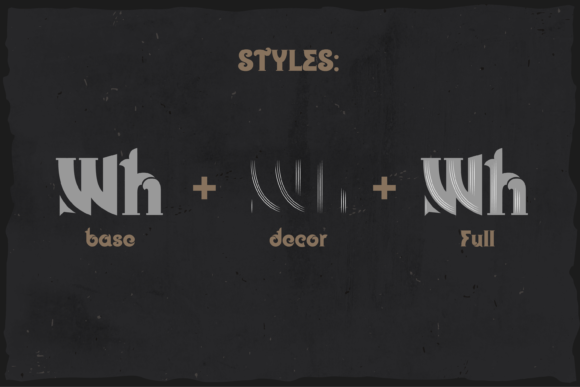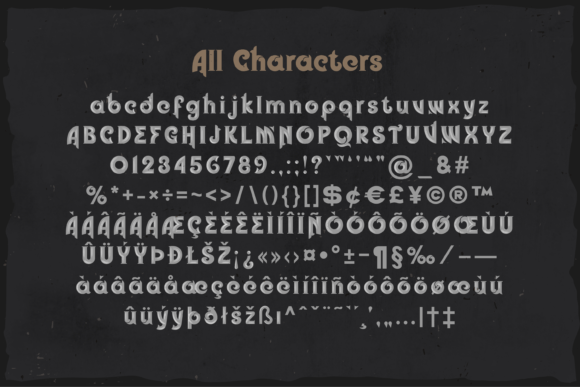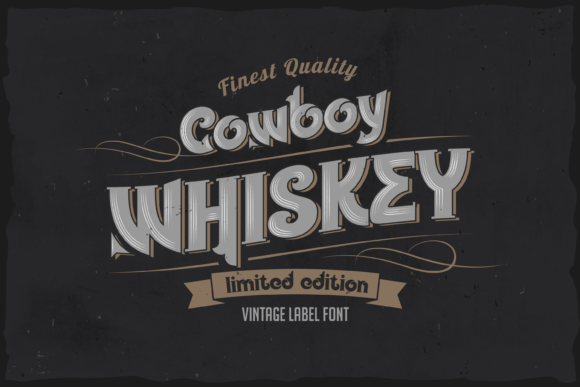
Cowboy Whiskey Font: Saddle Up for a Vintage Design Ride
Are you a designer or crafter looking for a font that embodies the rugged charm of the Wild West? Look no further than the Cowboy Whiskey font, a stylish and vintage-label layer display font that’s perfect for creating eye-catching labels, posters, and signage with a nostalgic flair.
The Wild West Comes Alive
Cowboy Whiskey is more than just a font – it’s an experience. With its intricate detailing and bold serifs, this font transports you back to the lawless lands of the American West, where cowboys roamed free and whiskey flowed like water. Whether you’re designing a label for a craft whiskey, creating a poster for a Wild West-themed event, or simply looking for a font that adds a touch of rugged elegance to your design project, Cowboy Whiskey is the perfect choice.
Key Features of Cowboy Whiskey Font
- Intricate Detailing: Cowboy Whiskey boasts intricate details that give it a truly authentic, vintage feel. From the subtle wear and tear on the letters to the ornate flourishes, every element of this font has been carefully crafted to evoke the spirit of the Wild West.
- Bold Serifs: The bold serifs of Cowboy Whiskey add a touch of ruggedness to your design, making it perfect for creating eye-catching labels, posters, and signage that stand out from the crowd.
- Vintage-Label Layer Display Font: Cowboy Whiskey is designed to be layered, allowing you to create complex, vintage-inspired designs with ease. Simply layer the font to achieve a distressed, worn look that’s perfect for adding a touch of nostalgia to your design.
Cowboy Whiskey is a versatile font that’s perfect for a wide range of design projects, including:
- Labels and Packaging: Add a touch of rugged elegance to your labels and packaging with Cowboy Whiskey. Perfect for craft whiskey, artisanal foods, and handmade crafts.
- Posters and Signage: Create eye-catching posters and signage with Cowboy Whiskey. Perfect for Wild West-themed events, concerts, and festivals.
- Branding and Identity: Establish a strong brand identity with Cowboy Whiskey. Perfect for businesses looking for a font that embodies the spirit of the Wild West.
Why Choose Cowboy Whiskey Font?
With so many fonts available, why choose Cowboy Whiskey? Here are just a few reasons why designers and crafters love this font:
- Unique and Authentic: Cowboy Whiskey is a truly unique font that captures the spirit of the Wild West. With its intricate detailing and bold serifs, it’s the perfect choice for designers looking for a font that stands out from the crowd.
- Easy to Use: Cowboy Whiskey is a layer display font that’s easy to use, even for designers who are new to working with layered fonts.
- High-Quality Design: Cowboy Whiskey is designed to high standards, ensuring that your design looks professional and polished.
If you’re looking for a font that embodies the rugged charm of the Wild West, look no further than Cowboy Whiskey. With its intricate detailing, bold serifs, and vintage-label layer display design, this font is perfect for creating eye-catching labels, posters, and signage with a nostalgic flair. Whether you’re a designer or crafter, Cowboy Whiskey is the perfect choice for adding a touch of authentic Wild West style to your design project.